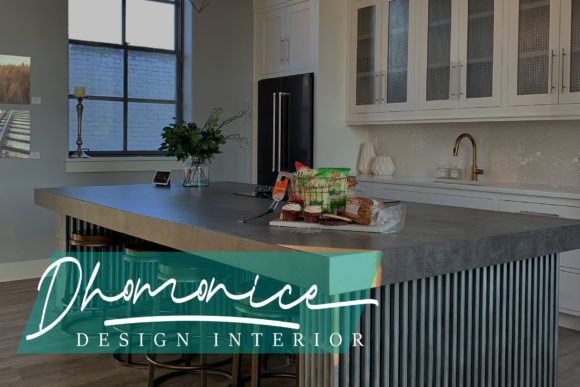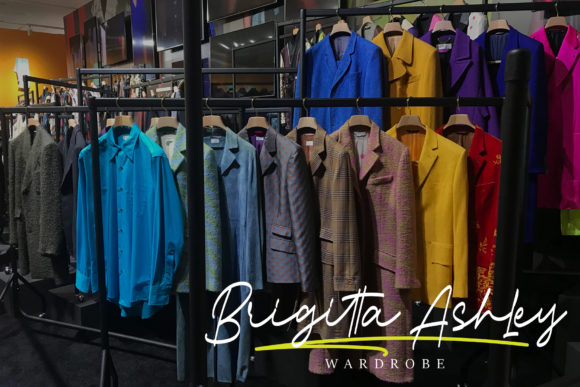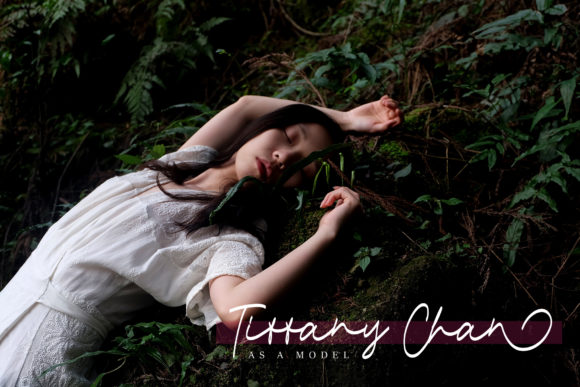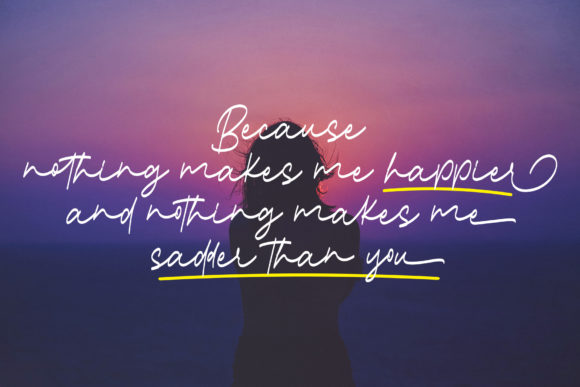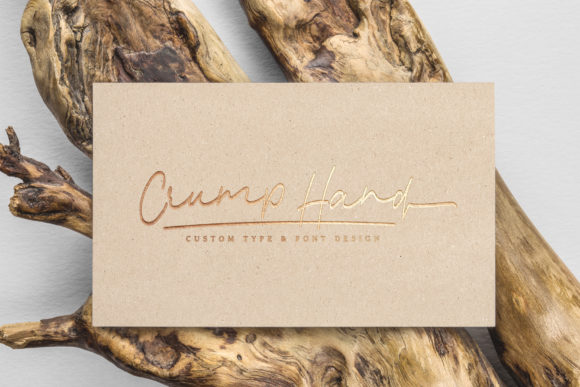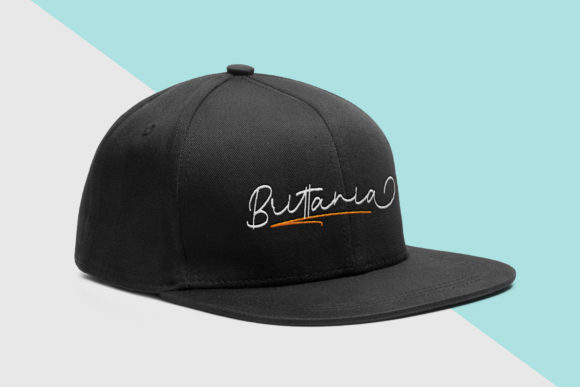
Introduction to Emertha Script Font
Emertha is a light and fun handwritten font with a cool twist.
Get inspired by its contemporary elegance .
Key Features of Emertha Script Font